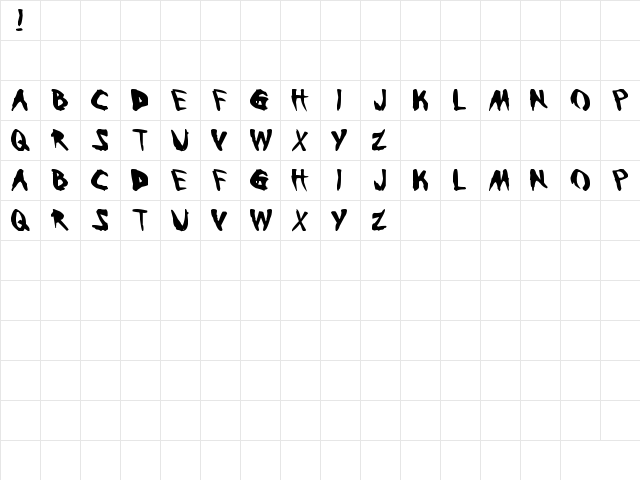
Bleeding Trough Regular
Design Context for Bleeding Trough Typeface
Bleeding Trough embraces imperfection — its rough, textured character adds raw authenticity to designs that want to feel lived-in and unconventional.
Suited to punk-influenced zines, underground music branding, streetwear, and raw, anti-corporate design.
Pro Tip: Pair Bleeding Trough with intentionally raw or lo-fi design elements. Fighting against it with overly polished surroundings will undermine its personality.